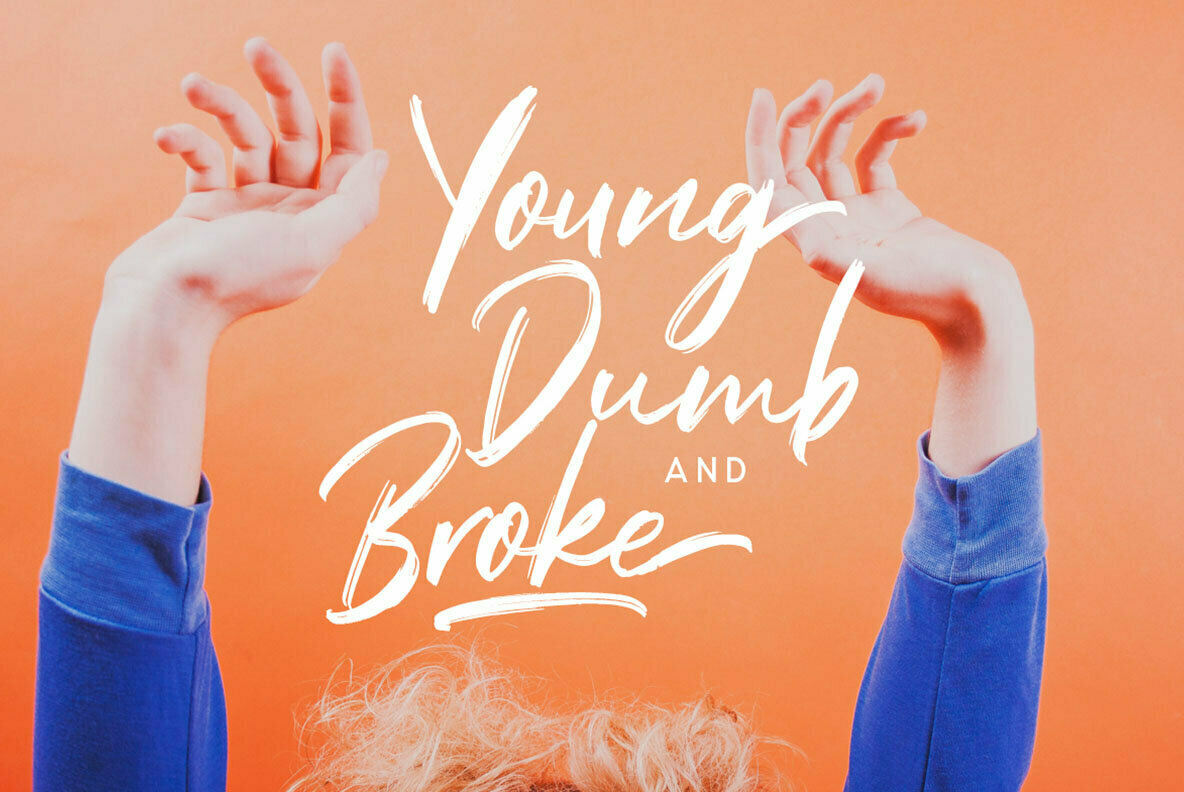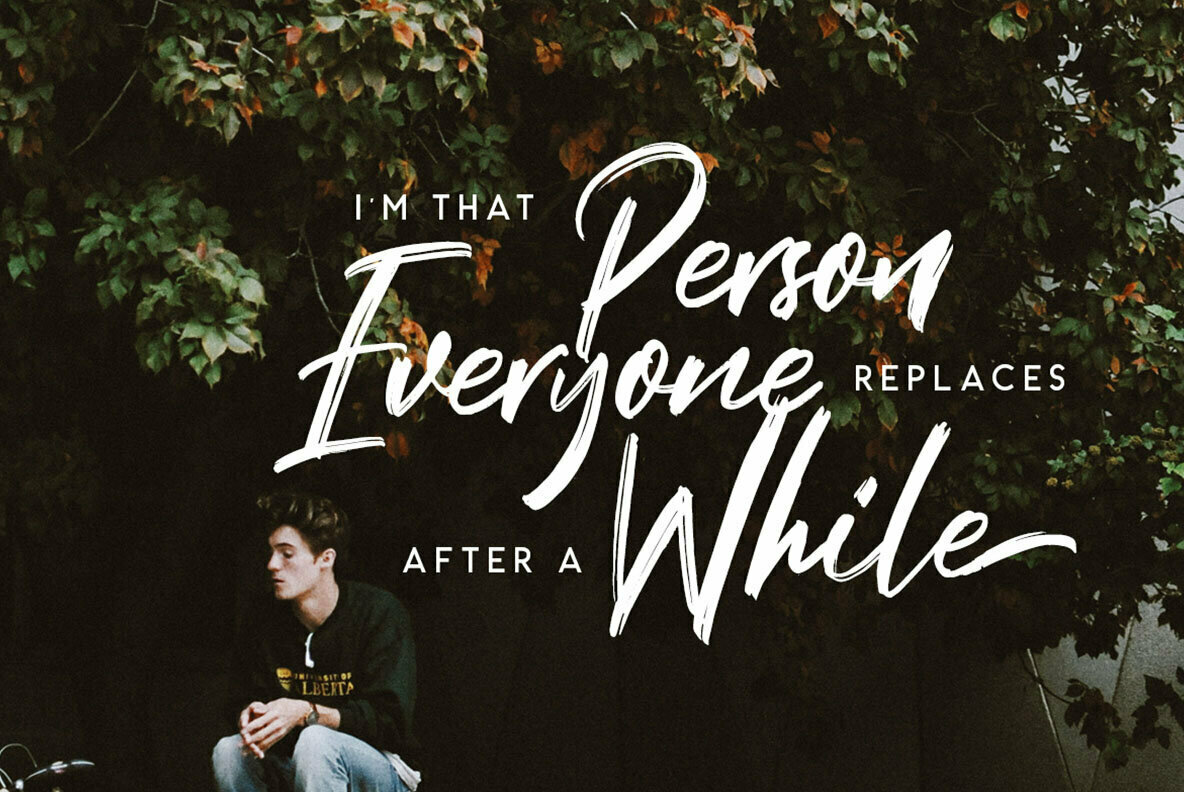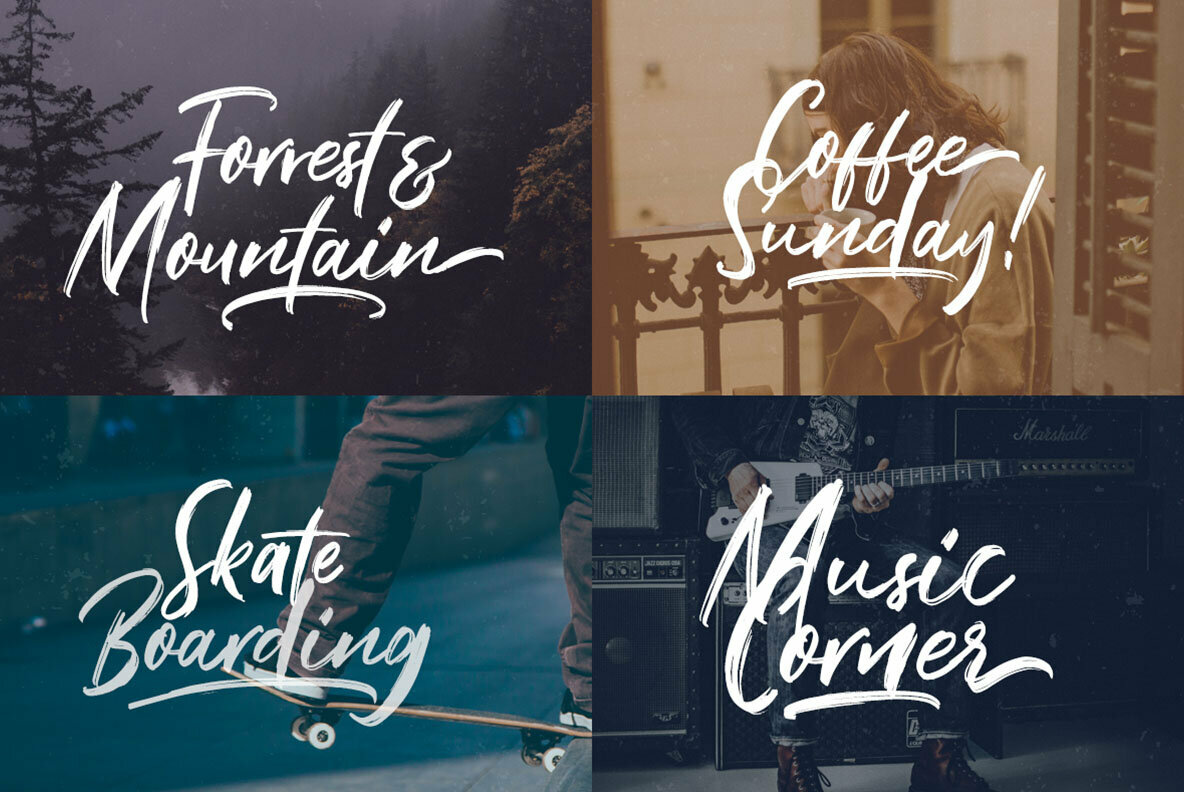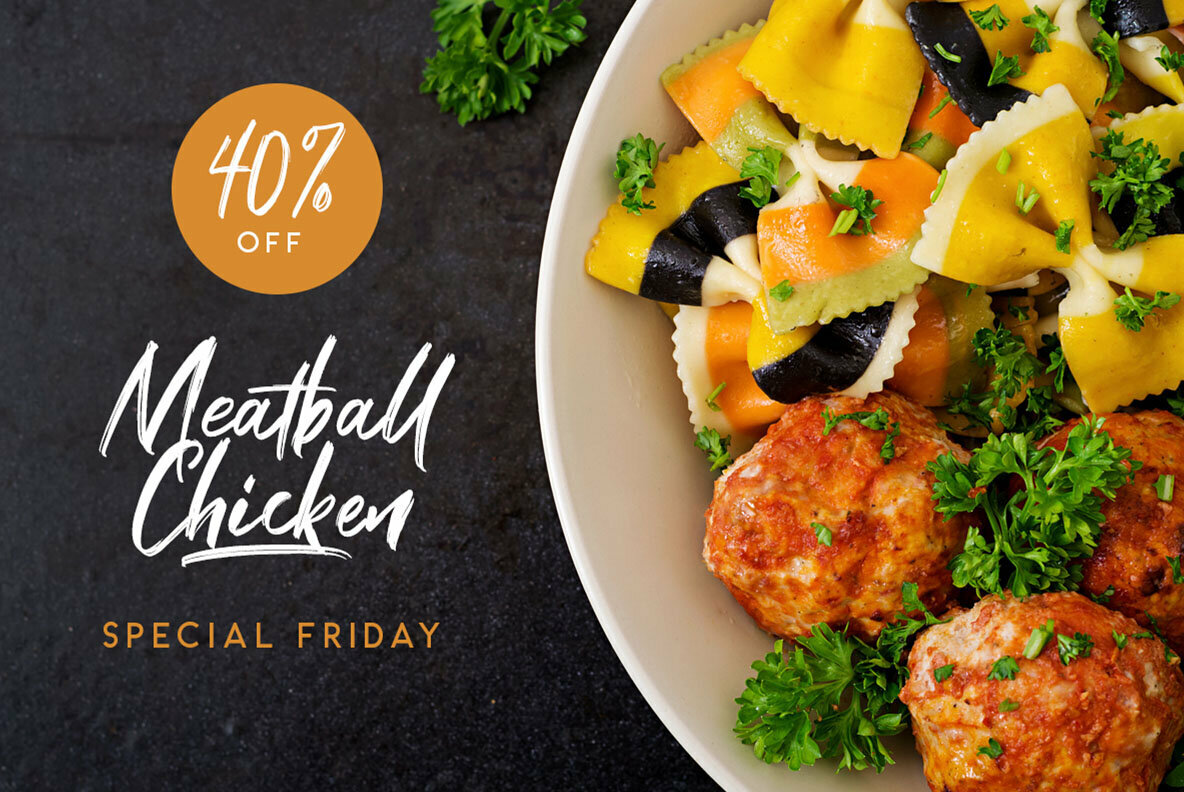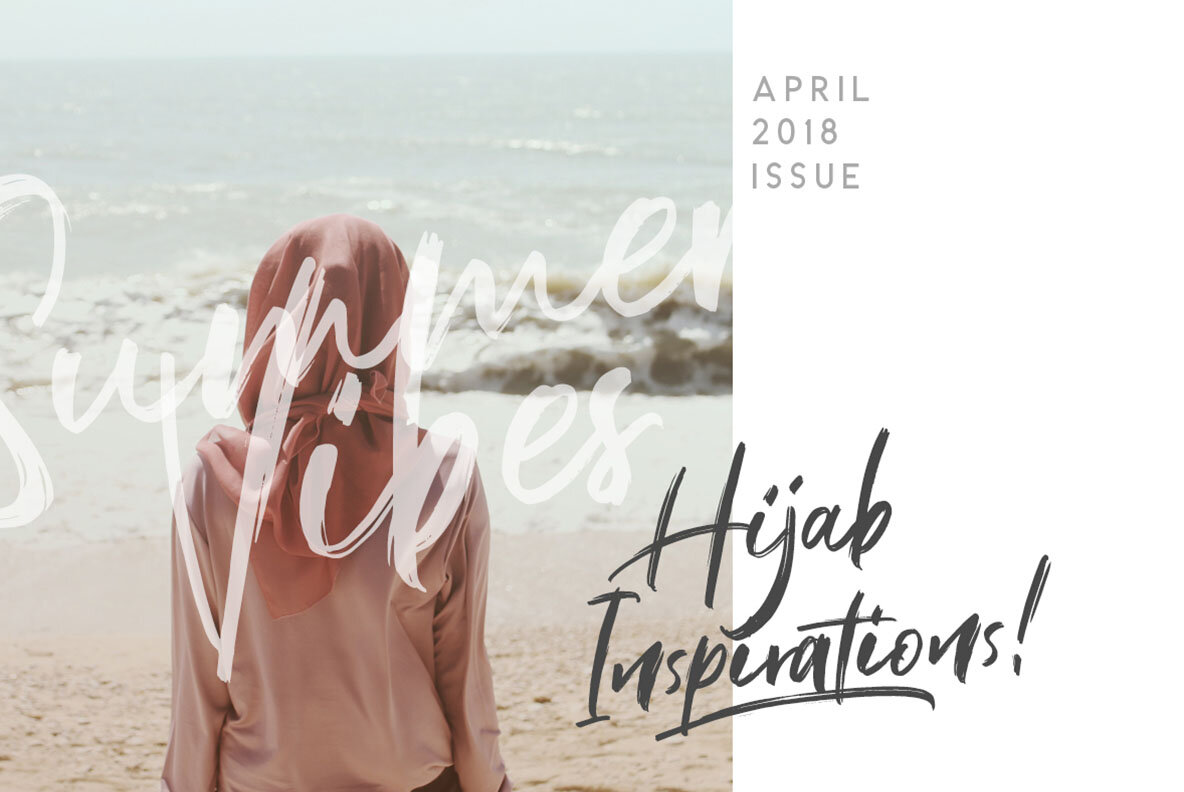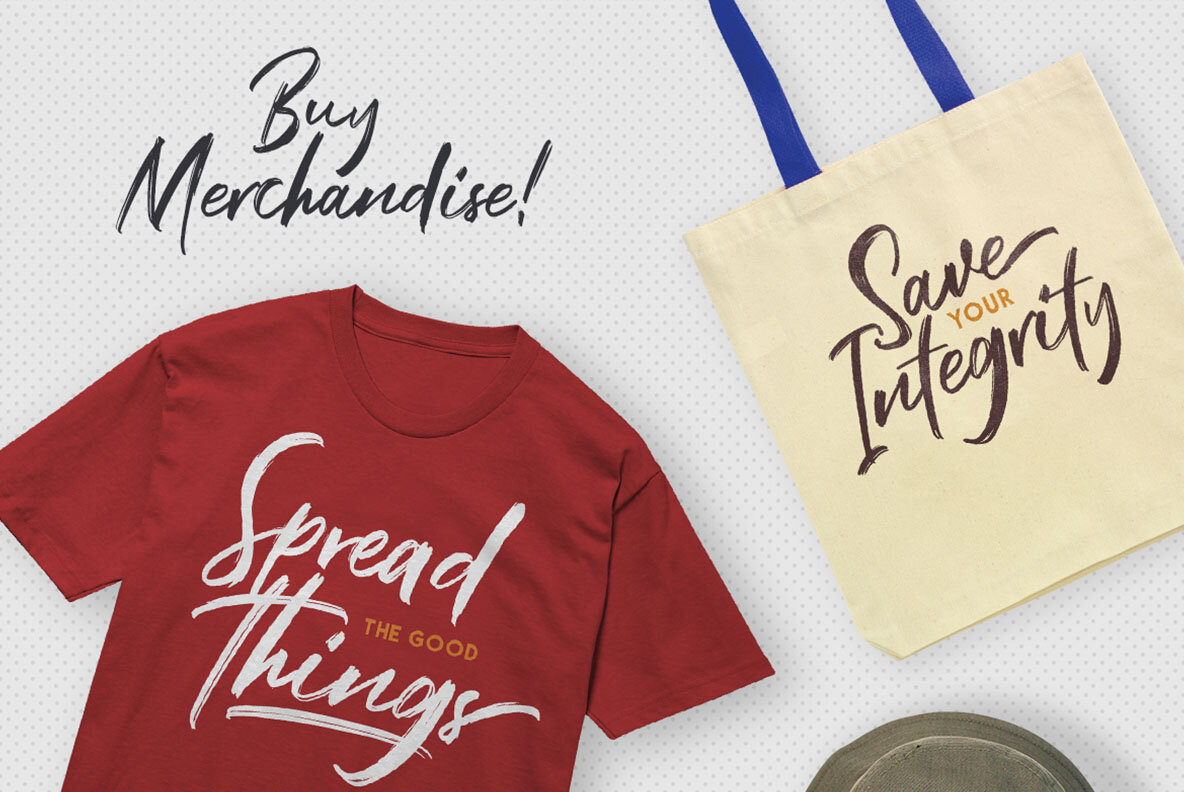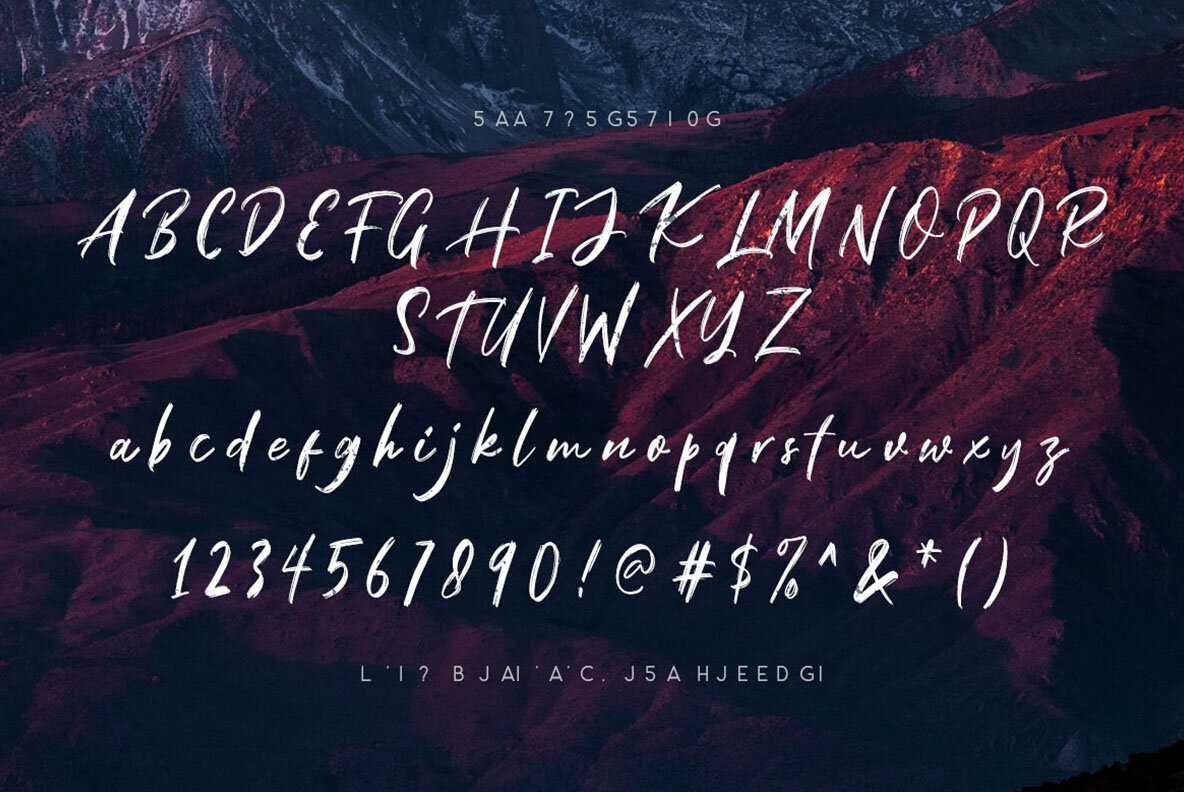
Black Mountage Font
Black Mountage Regular
Black Mountage Alt
Black Mountage offers creatives a dynamic brush font perfect for crafting customized signatures, quotes, and stylish apparel. Its rich feature set includes stylistic alternates and swashes, providing a flexible toolset for unique design explorations. This font not only brings a creative edge but also ensures broader communication by supporting multiple languages.Black Mountage: A Versatile Brush Font for Unique Designs